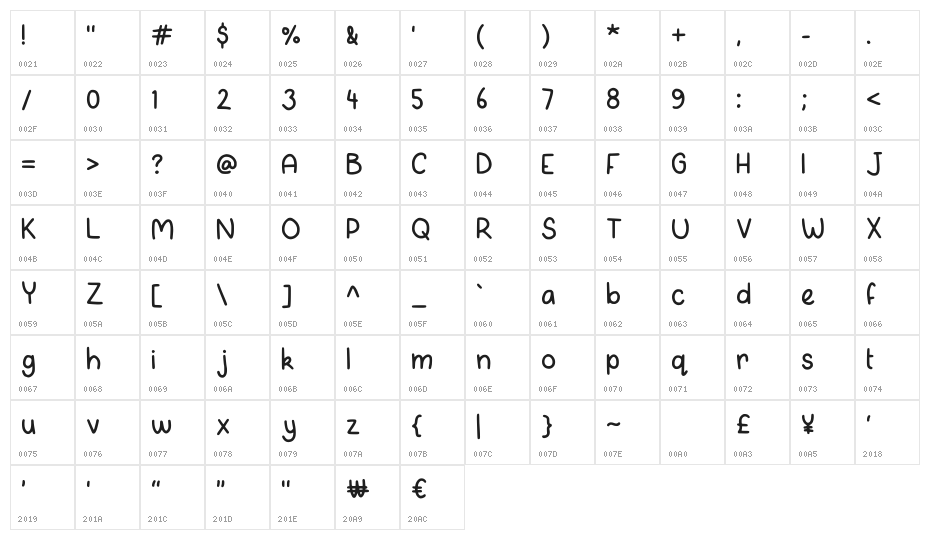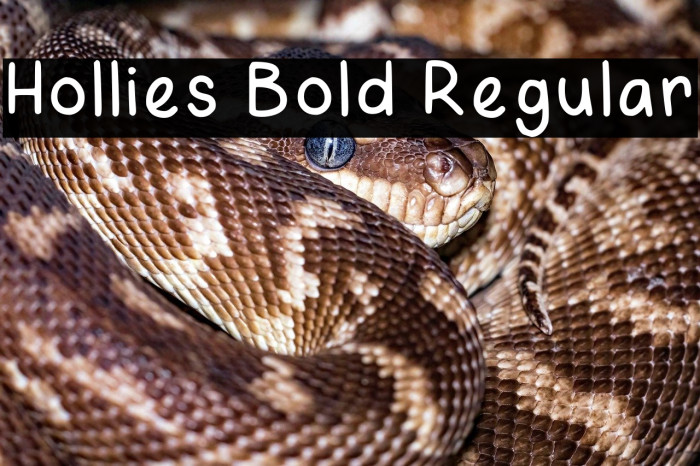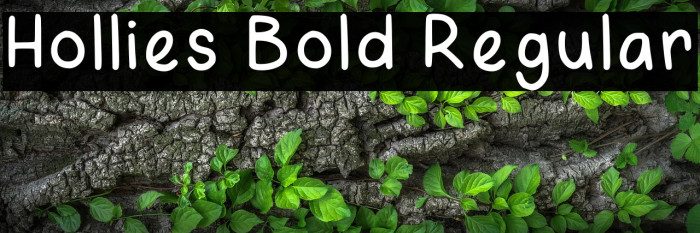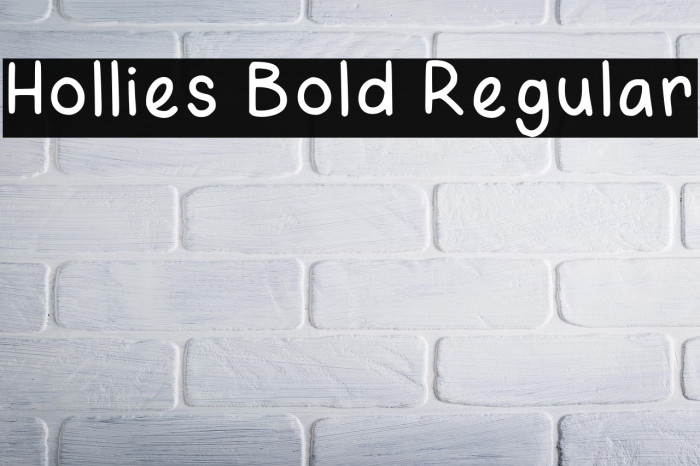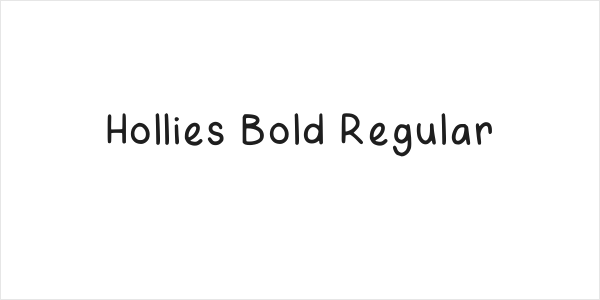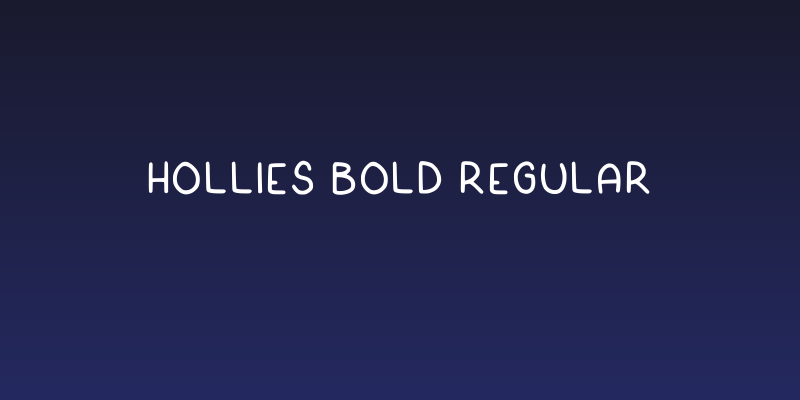
Hollies Bold Regular Font
Hollies Bold Regular Description
This font features a playful and rounded style, characterized by its smooth curves and friendly appearance. The letters are evenly spaced, with a consistent stroke width that gives it a cohesive look. The uppercase and lowercase letters are well-proportioned, making it easy to read. The numbers and special characters maintain the same playful aesthetic, ensuring uniformity across all characters. This font is ideal for projects that require a casual and approachable feel, such as children's books, informal branding, or creative designs.
| Proposed Projects | Children's books, informal branding, creative designs, playful invitations. |